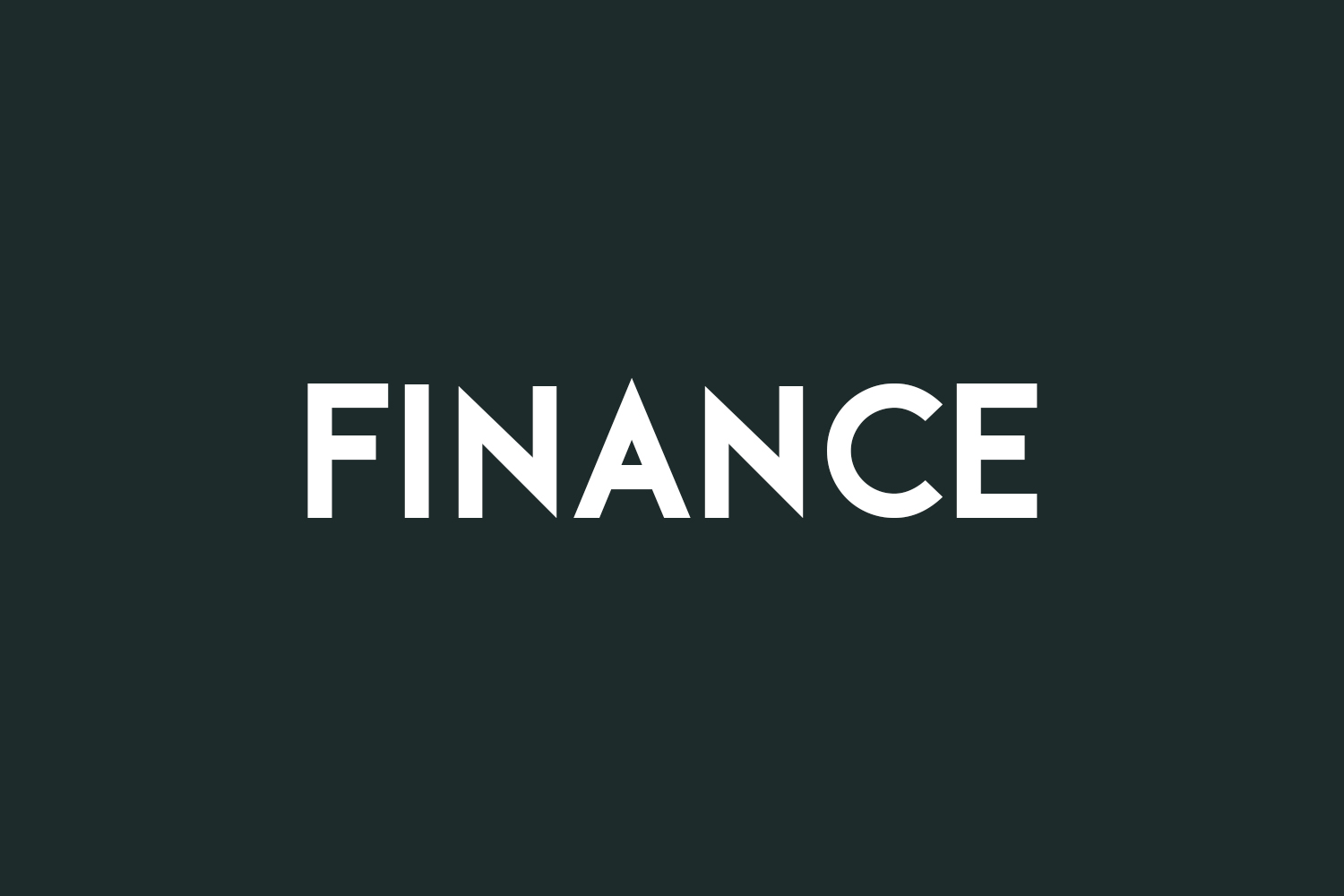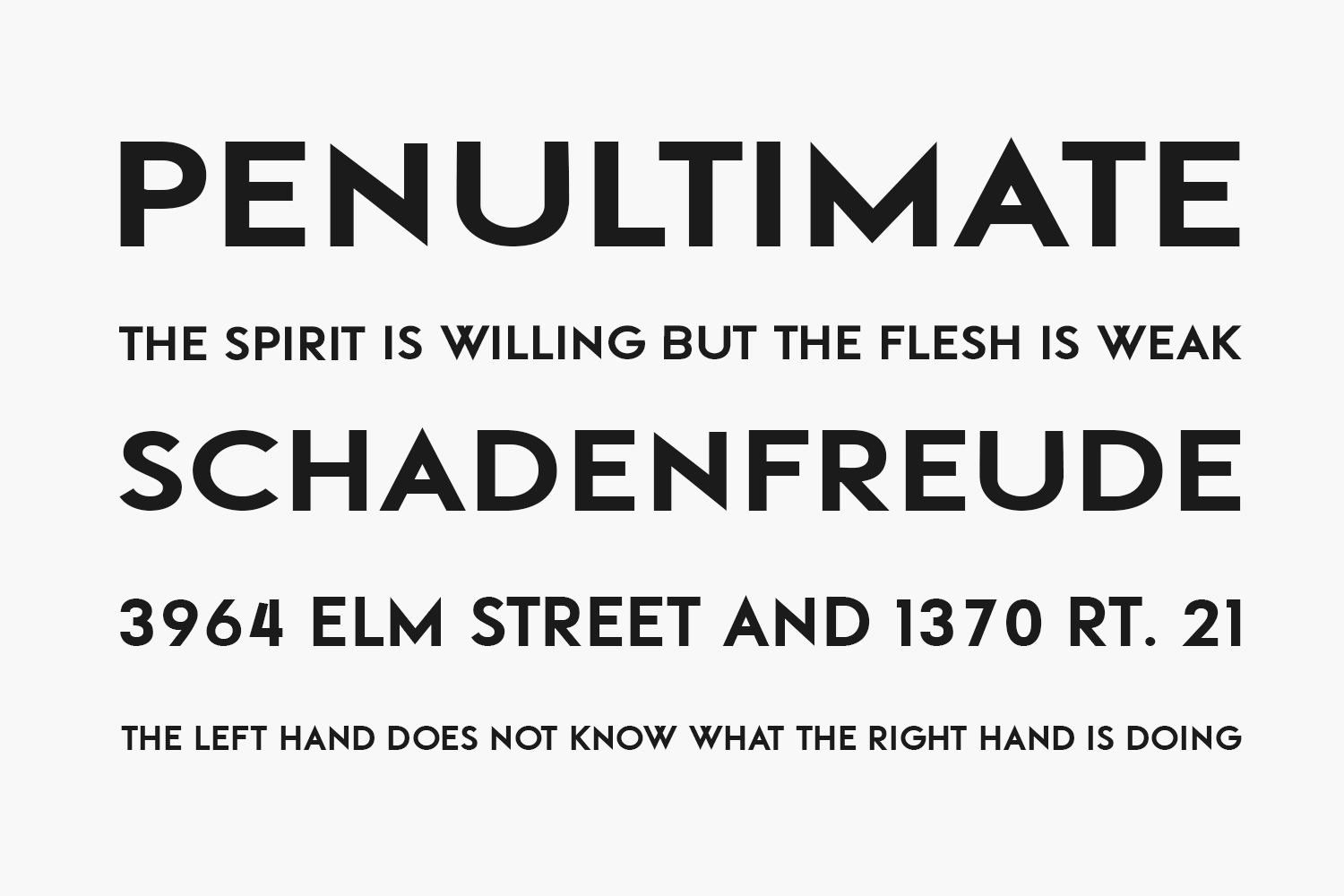
Finance Free Font is a stylish sans serif typeface that will inspire your works and designs. It will look awesome on any of your projects or crafts. Finance Free Font was designed by Vladimir Nikolic and is free for personal use only. Please purchase the full version for commercial use.
Designed by Vladimir Nikolic